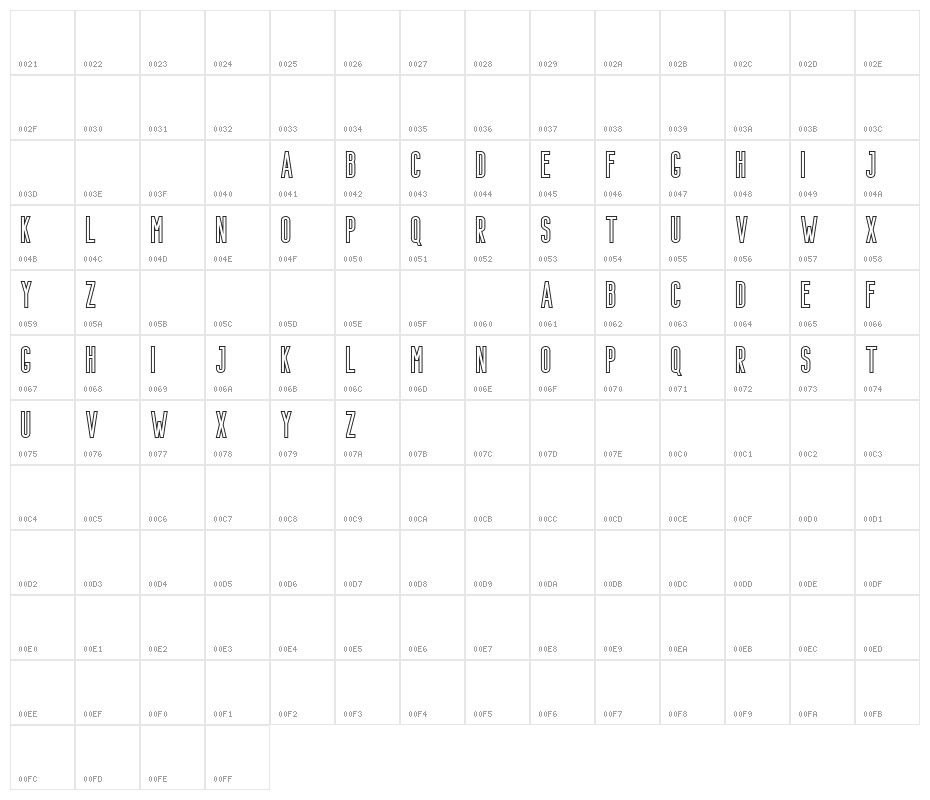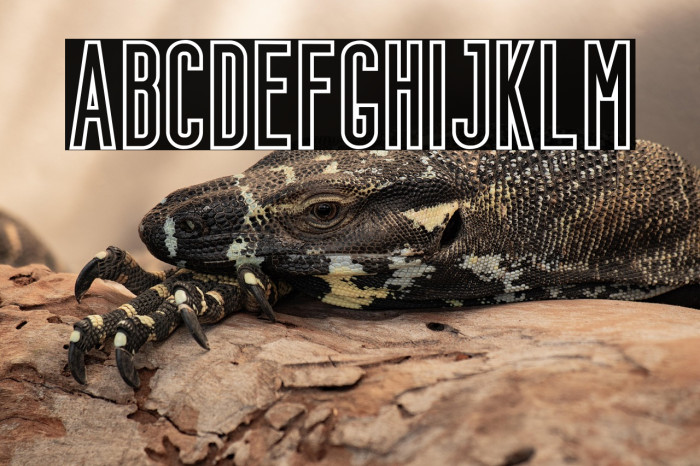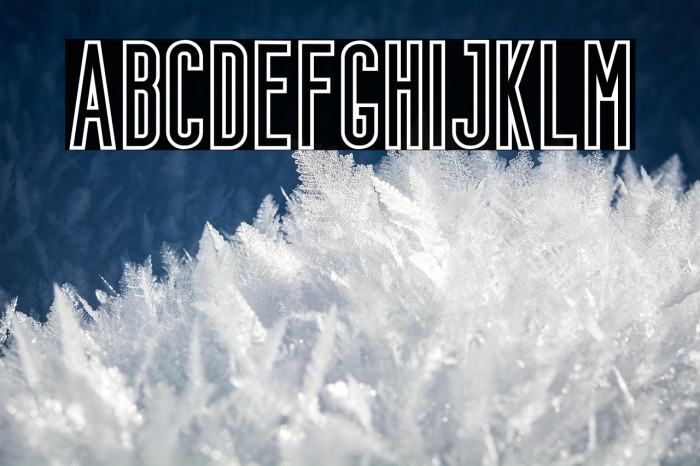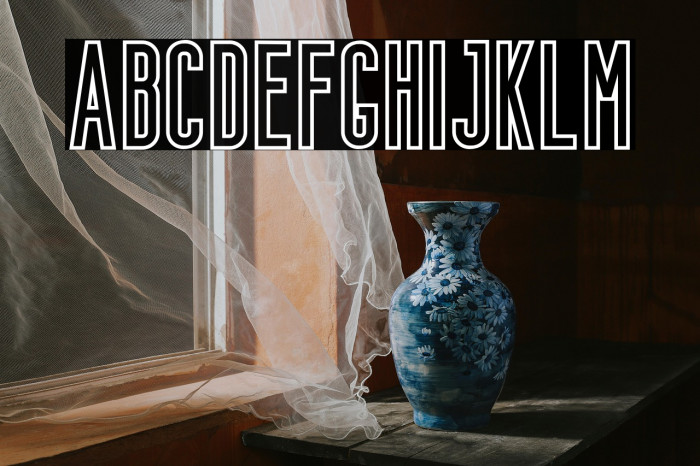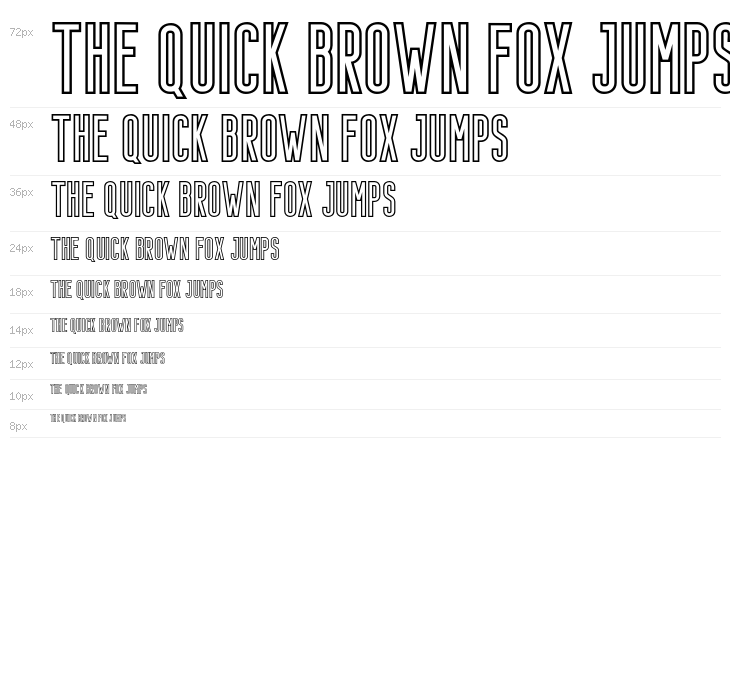
Bondie-Outline Font
Bondie-Outline Description
This font features a bold, outlined style with clean, geometric lines that create a striking visual impact. The uppercase letters are uniform in height, with a consistent stroke width that enhances readability. The outline effect adds a modern and dynamic touch, making it ideal for attention-grabbing designs. The characters are evenly spaced, providing a balanced and harmonious appearance. This font is versatile, suitable for various design projects that require a contemporary and bold aesthetic.